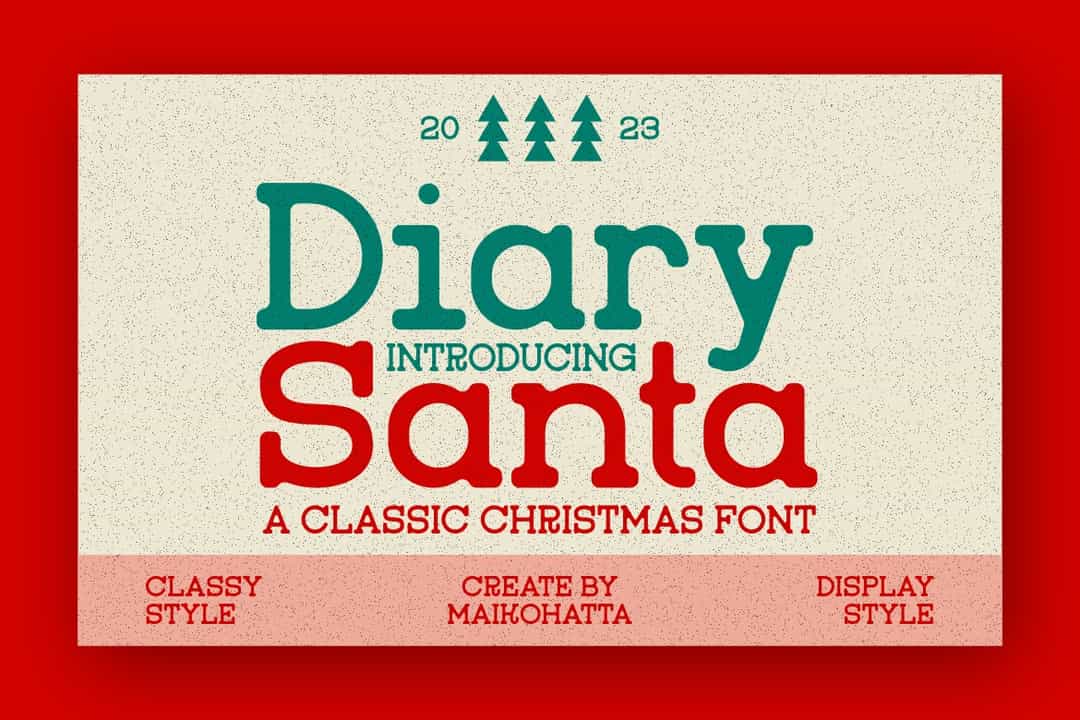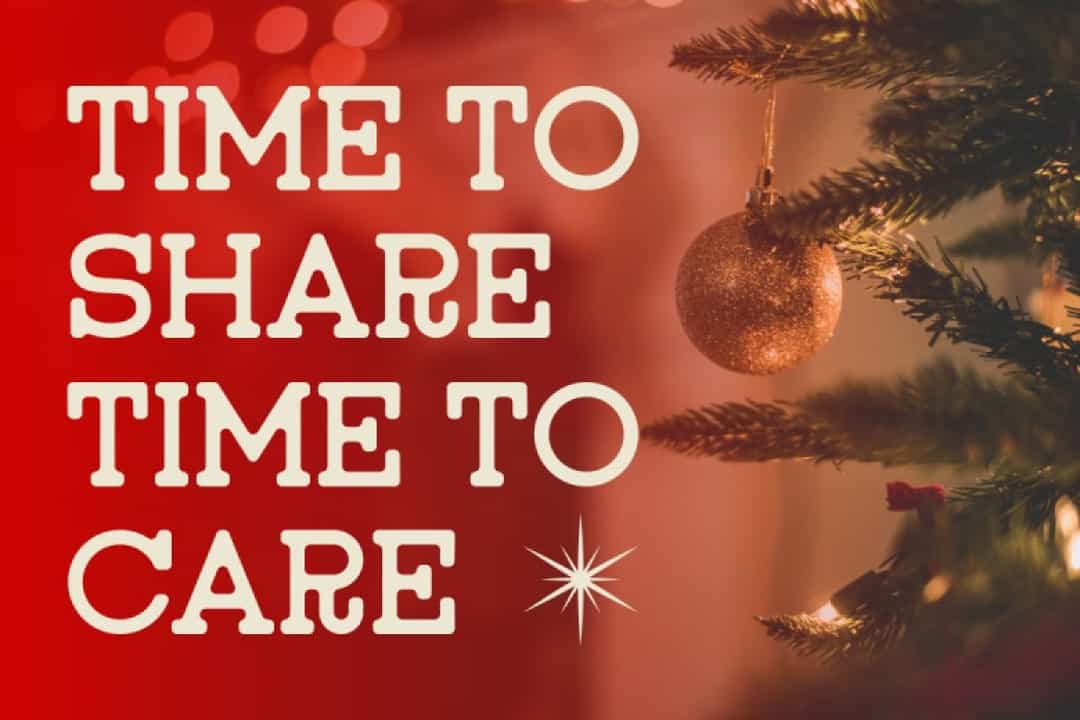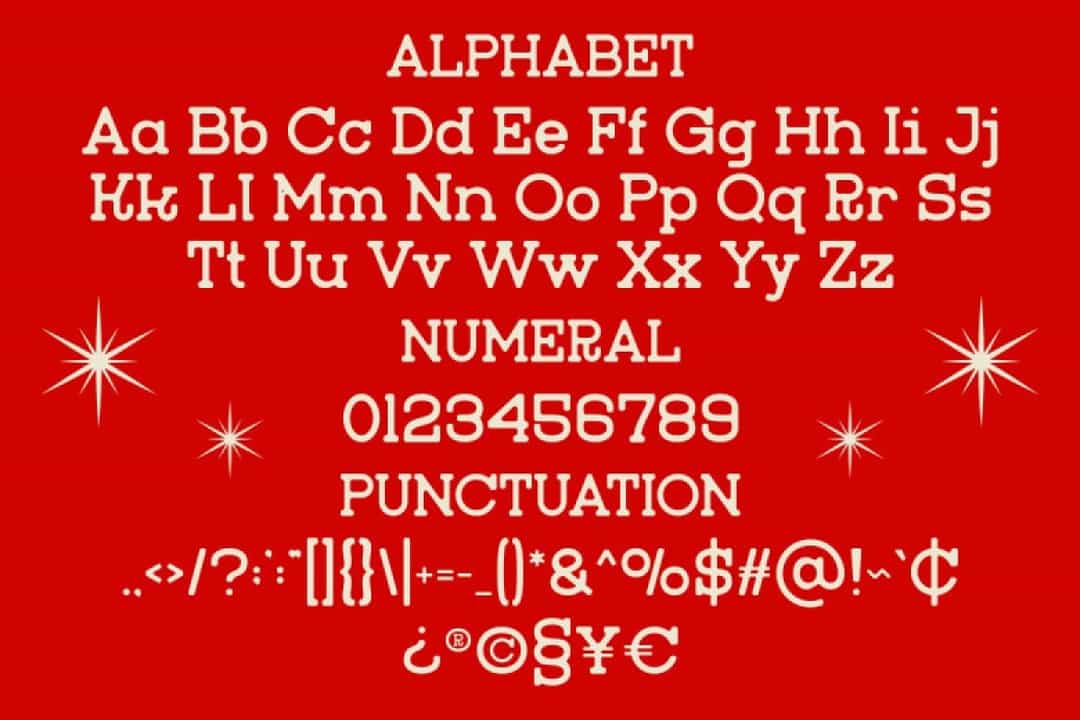
Diary Santa, our brand new item of Traditional Christmas Font was specifically created to add a festive atmosphere. It can be found used widely across posters, greeting cards and other visual designs associated with celebrating Christmas.